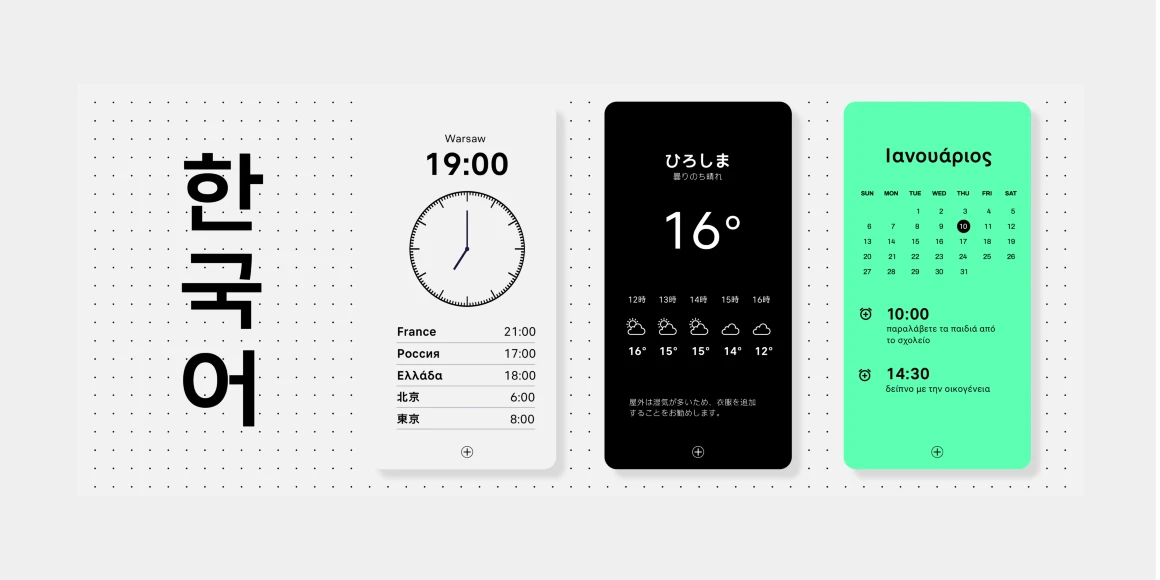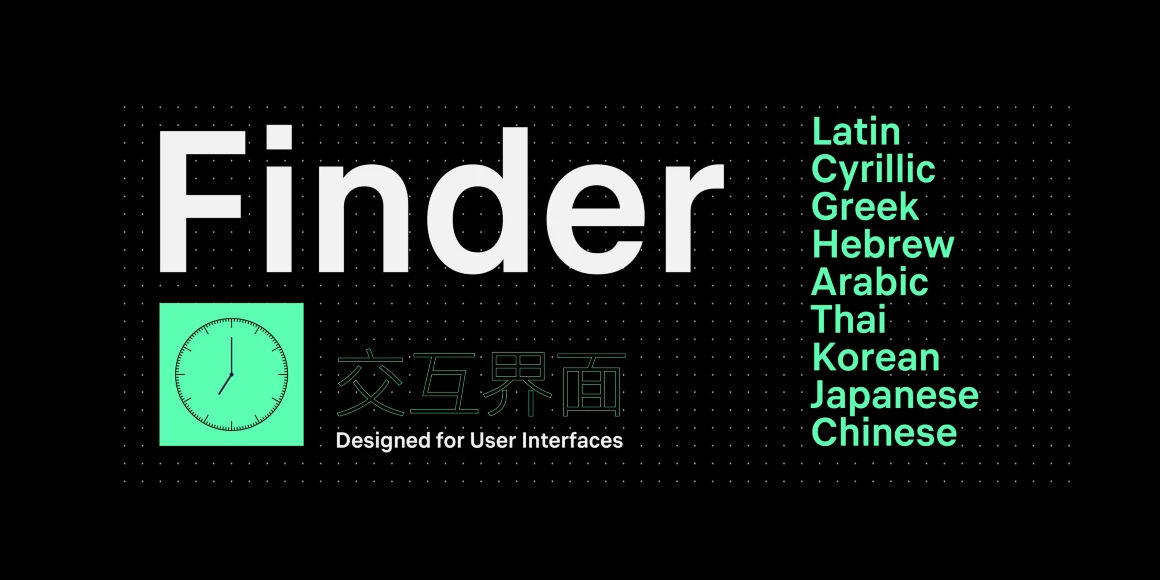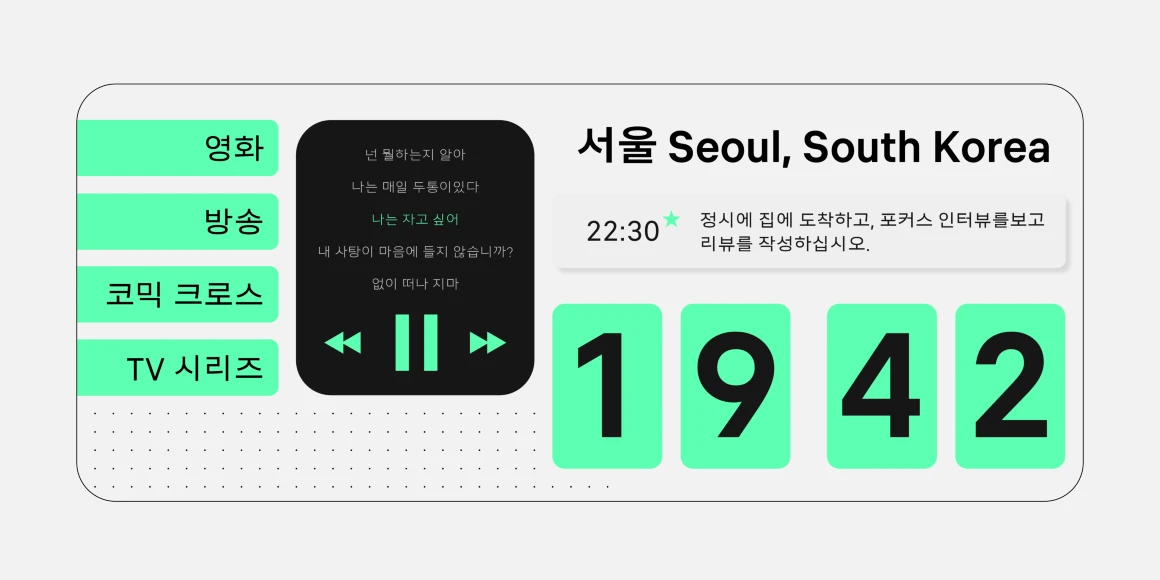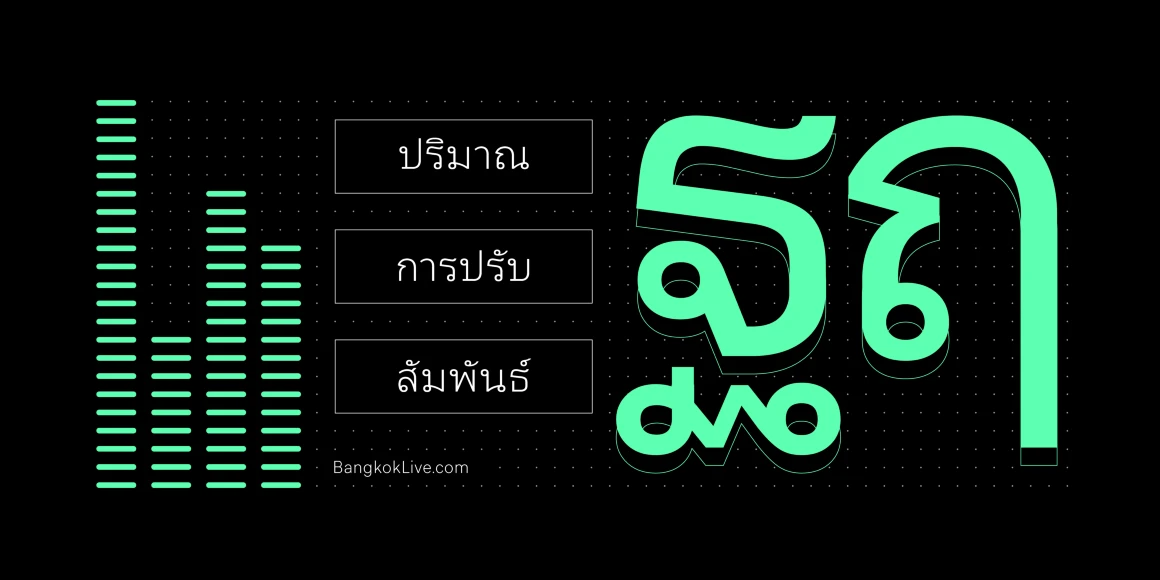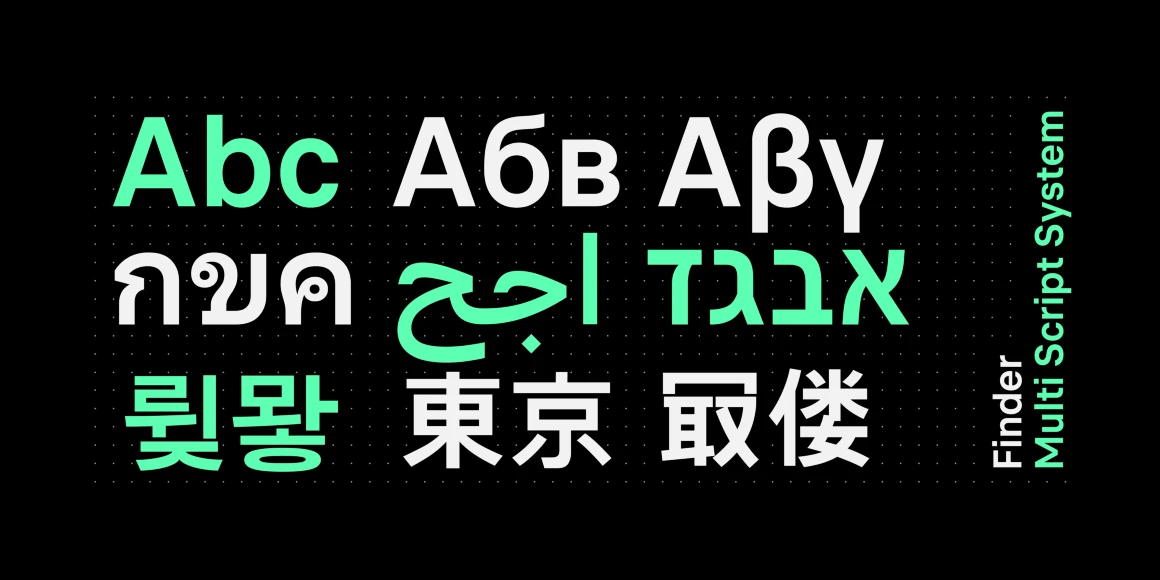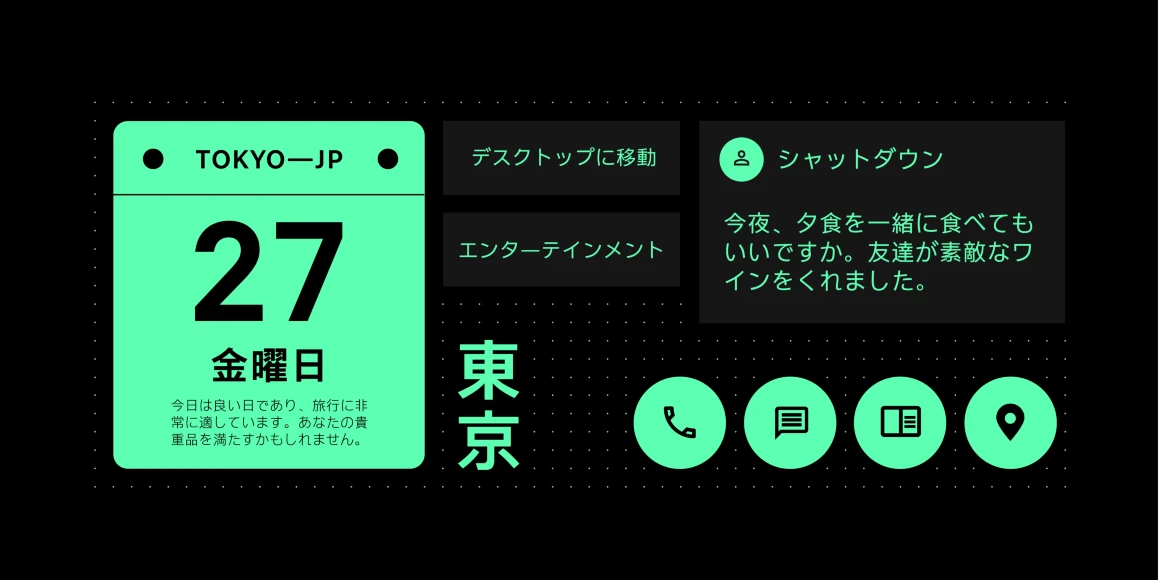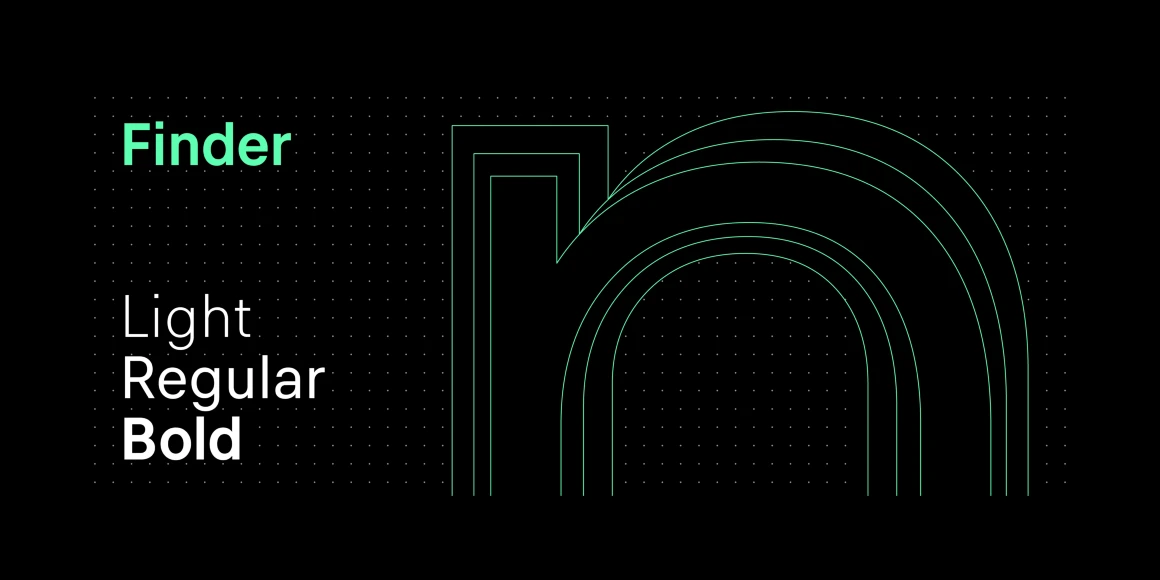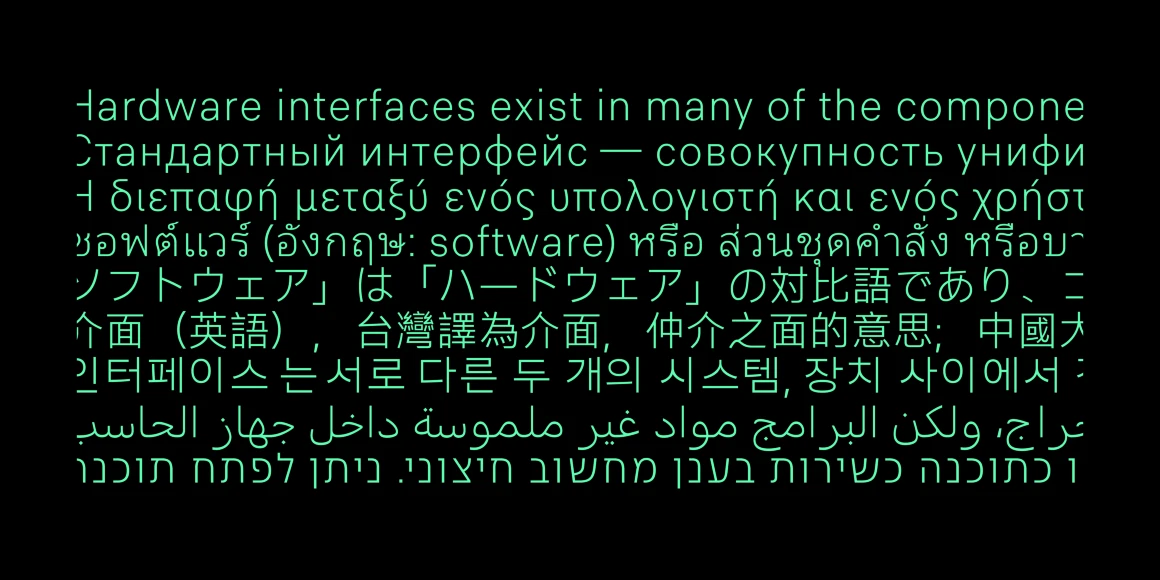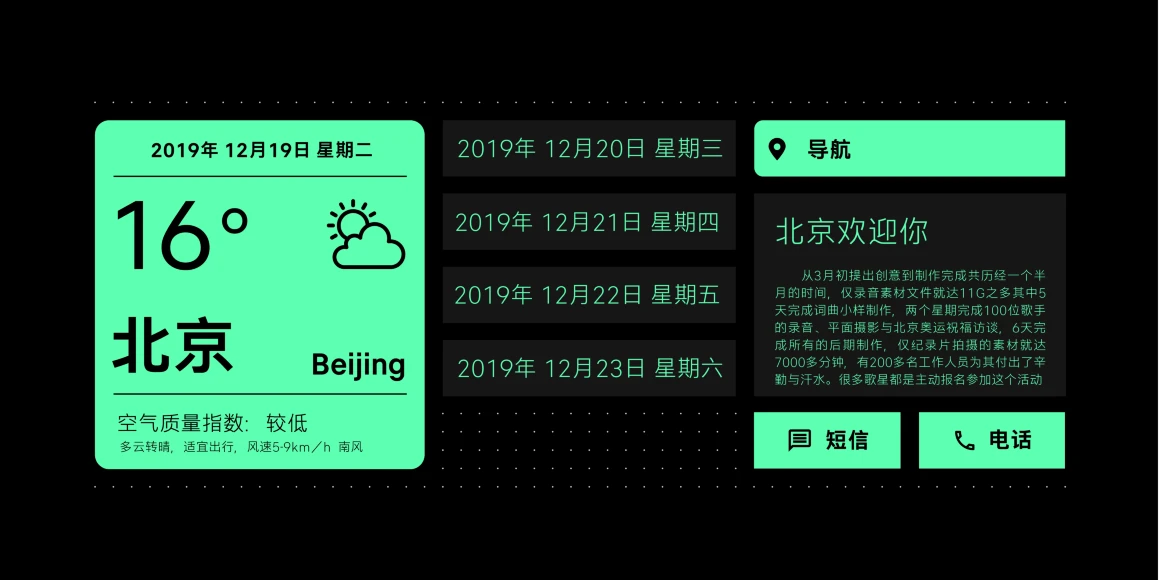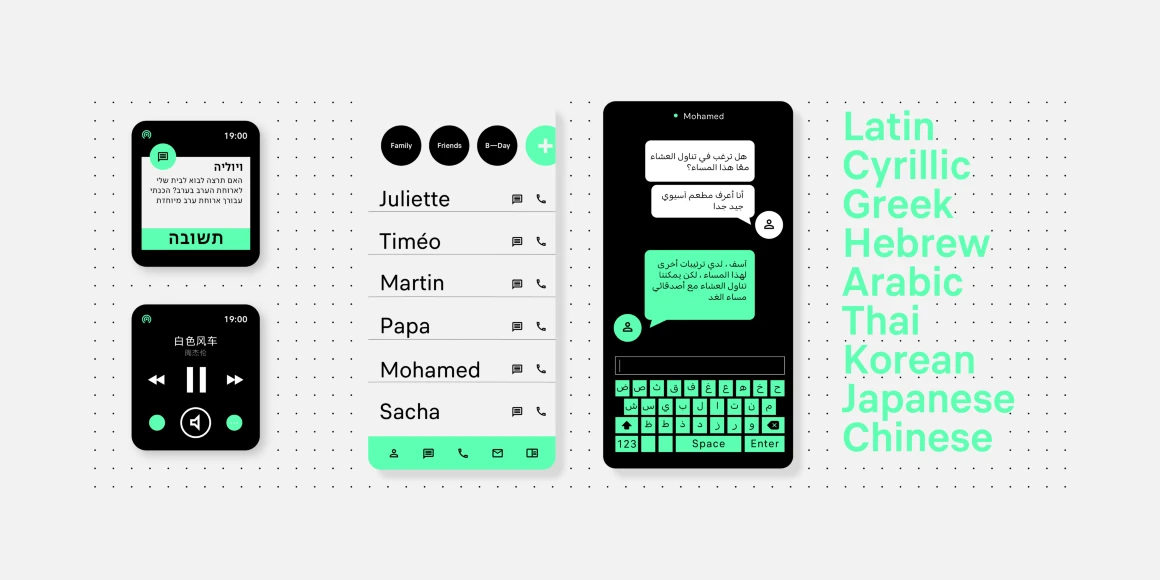
Finder
Finder is a versatile sans serif crafted for multi-script user interfaces. Its open forms, large counters, and generous spacing enhance legibility for designers in need of clarity at small sizes and are vital for dense screens and navigation. Supporting Arabic, Cyrillic, Greek, Hebrew, Latin, Simplified Chinese, Japanese, Korean, and Thai, Finder ensures a seamless global experience. Neutral and adaptable, it provides a cohesive typographic voice for UI, branding, and digital platforms worldwide.
- Arabic
- Greek
- Hebrew
- Kazakh
- Macedonian
- Persian
- Thai
- Urdu